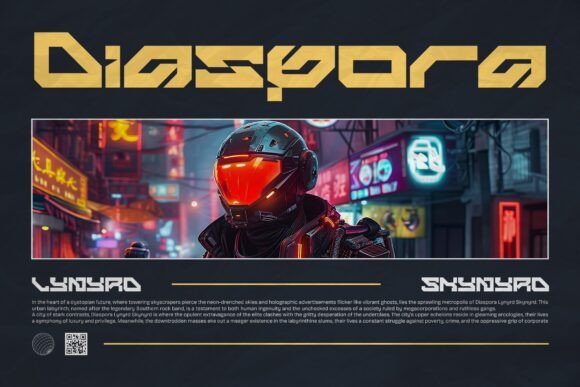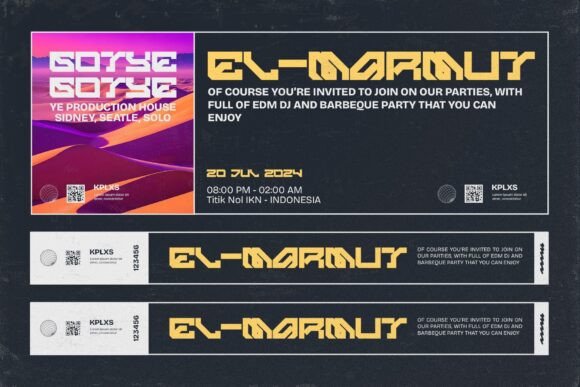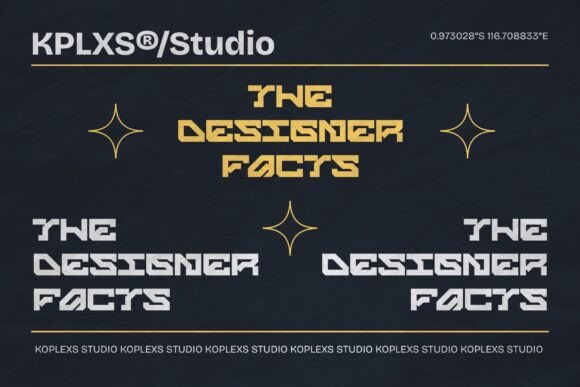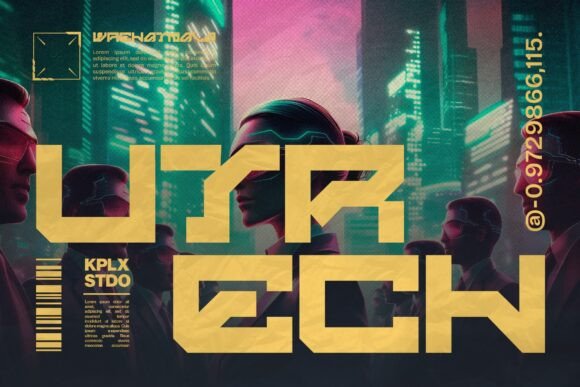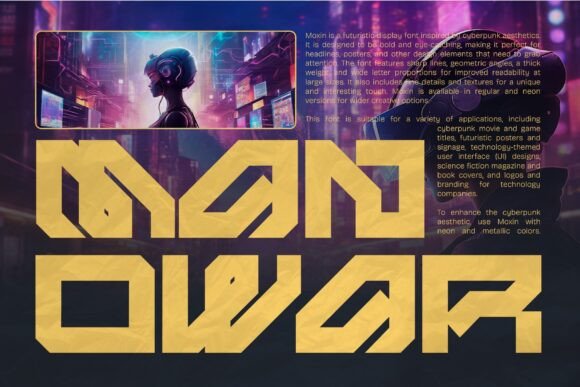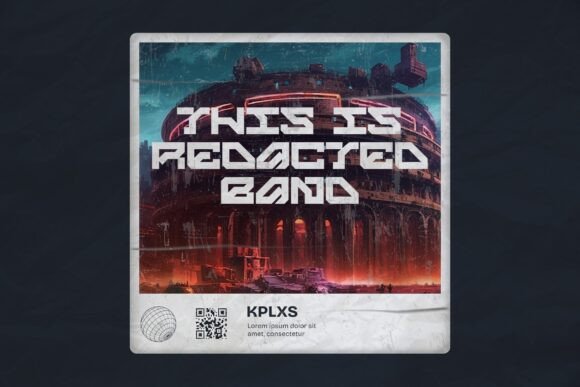
Introduction to Moxin Font
Remember that moment when you finally nailed the perfect design for your client’s futuristic gaming logo? The one that perfectly captured the essence of their brand and left a lasting impression on their audience? For many designers, it’s moments like these that make all the hard work worth it. But what if you could take your designs to the next level with a single, high-quality font?
Enter Moxin Font, a sleek and modern sans-serif font that’s perfect for tech, gaming, and sci-fi designs. With its clean geometric shapes and transparent background, Moxin Font adds a cutting-edge touch to any creative project. Whether you’re working on a logo, poster, or digital project, Moxin Font is a valuable design resource that’s sure to elevate your work.
Key Features of Moxin Font
- High-quality, free font ideal for creative projects and design resources, offering a unique aesthetic for your work.
- Transparent background option for seamless integration into various design elements and backgrounds.
- Supports various font sizes and resolutions, making it suitable for both small and large-scale design projects.
- Designed to be highly legible, with clear and crisp typography that is perfect for a wide range of creative projects.
Honest Review: Moxin Font
As a designer, I’m always on the lookout for high-quality fonts to enhance my creative projects. The Moxin Font caught my attention, and I decided to give it a try.
- ✨ Elegant and modern design that adds a touch of sophistication to any project.
- ✨ Clear and legible even at smaller font sizes, making it perfect for body text.
- ✨ The font comes in multiple weights, providing versatility for different design applications.
- ⚠️ The font doesn’t support a transparent background, which can be a limitation for designers who need this feature.
Overall, I’m impressed with the Moxin Font’s quality and design. While it may not be perfect, it’s a great resource for designers who need a modern and elegant font for their creative projects. The free download option is a bonus, making it accessible to designers on a budget.
The Moxin Font is a high-quality, free download design resource ideal for creative projects. With a transparent background, this versatile font can be used in various applications.
Common Use Cases for Moxin Font
The Moxin Font is ideal for:
Designing logos, branding materials, and marketing collateral.
Creating digital products, such as e-books and presentations.
Adding a touch of elegance to your website or blog design.